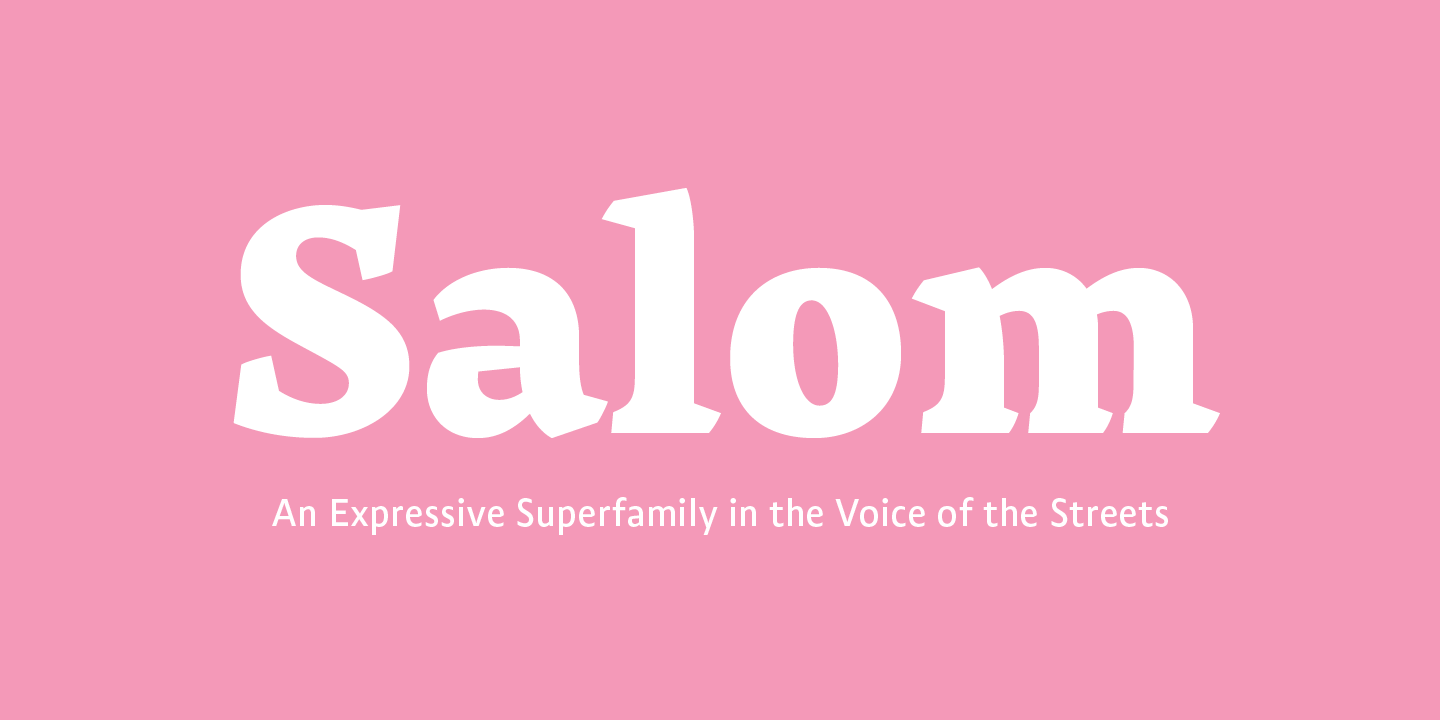
Salom Font is perfect for various applications including friendly greeting card designs, welcoming business signage, international language learning materials, multicultural event posters, community center branding, hospitality service logos, cultural exchange programs, inclusive marketing campaigns, social media welcome graphics, and warm invitation designs.
What makes Salom Font so exciting is its universal ability to bridge cultural boundaries and create instant connections through the simple power of greeting. This welcoming typeface features warm, approachable letterforms with friendly curves and inviting details that capture the spirit of human connection and cross-cultural communication. The font's inclusive character and globally appealing aesthetic make it ideal for brands that want to convey warmth, hospitality, and cultural sensitivity to audiences who value diversity, inclusivity, and meaningful human connections.
Salom Font family includes multiple weights and styles: Light, Regular, Medium, Bold, Friendly, Condensed, Extended, Welcome, and warmly designed Italic variants. Each family member maintains the font's signature warmth while offering different levels of visual impact and stylistic flexibility for diverse multicultural and hospitality applications.
The Salom Font Free Download provides designers with access to a globally-minded typeface that excels in hospitality and multicultural markets. Whether you're creating inclusive brand identities, designing welcoming marketing materials, or developing cross-cultural digital experiences, this font delivers the warm aesthetic needed to connect with diverse communities and international audiences. Its friendly styling and universal essence make it particularly effective for hospitality services, cultural organizations, and internationally-focused businesses.
Typography specialists will recognize the careful balance between warmth and professionalism in Salom Font's construction. The font features naturally flowing letterforms with welcoming curves, optimized spacing for multilingual applications, and carefully crafted proportions that ensure excellent readability while maintaining its friendly character. From international welcome signage to multicultural event materials, this typeface maintains its warmth and inclusive appeal across all cultural contexts.
For hospitality web designers, Salom Font provides outstanding performance in welcoming digital environments and multicultural platforms. The font's technical specifications are optimized for international audiences while preserving the warm, inviting edges that define its friendly character. Its versatility makes it suitable for both static welcome content and interactive multicultural experiences.
Creative professionals working in hospitality, international services, cultural organizations, and community outreach will find Salom Font to be an essential tool for projects requiring welcoming visual communication. The font's ability to convey warmth, inclusivity, and cultural sensitivity makes it invaluable for brands targeting diverse communities and international demographics.
Design agencies specializing in hospitality and multicultural brands appreciate Salom Font's versatility in creating memorable welcoming identities.